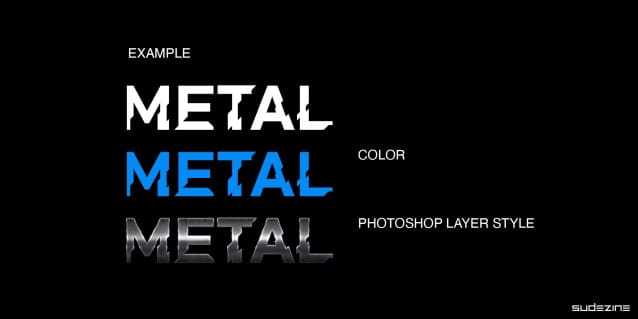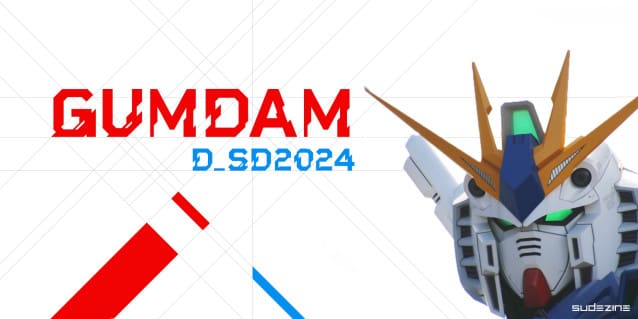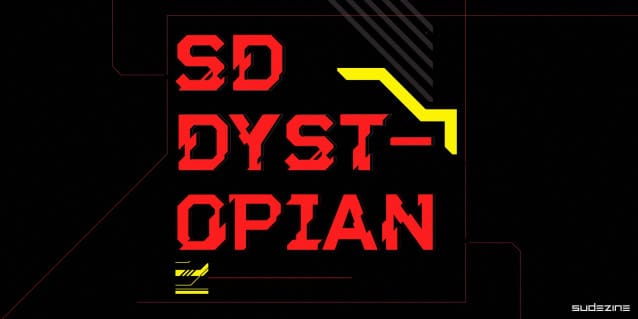
SDDystopian Futuristic Font
SDDystopian Futuristic Font is a Futuristic Dystopian Cyber Font, Use logos, quotes, invitations, greeting cards, journals, posters, clothing, and more